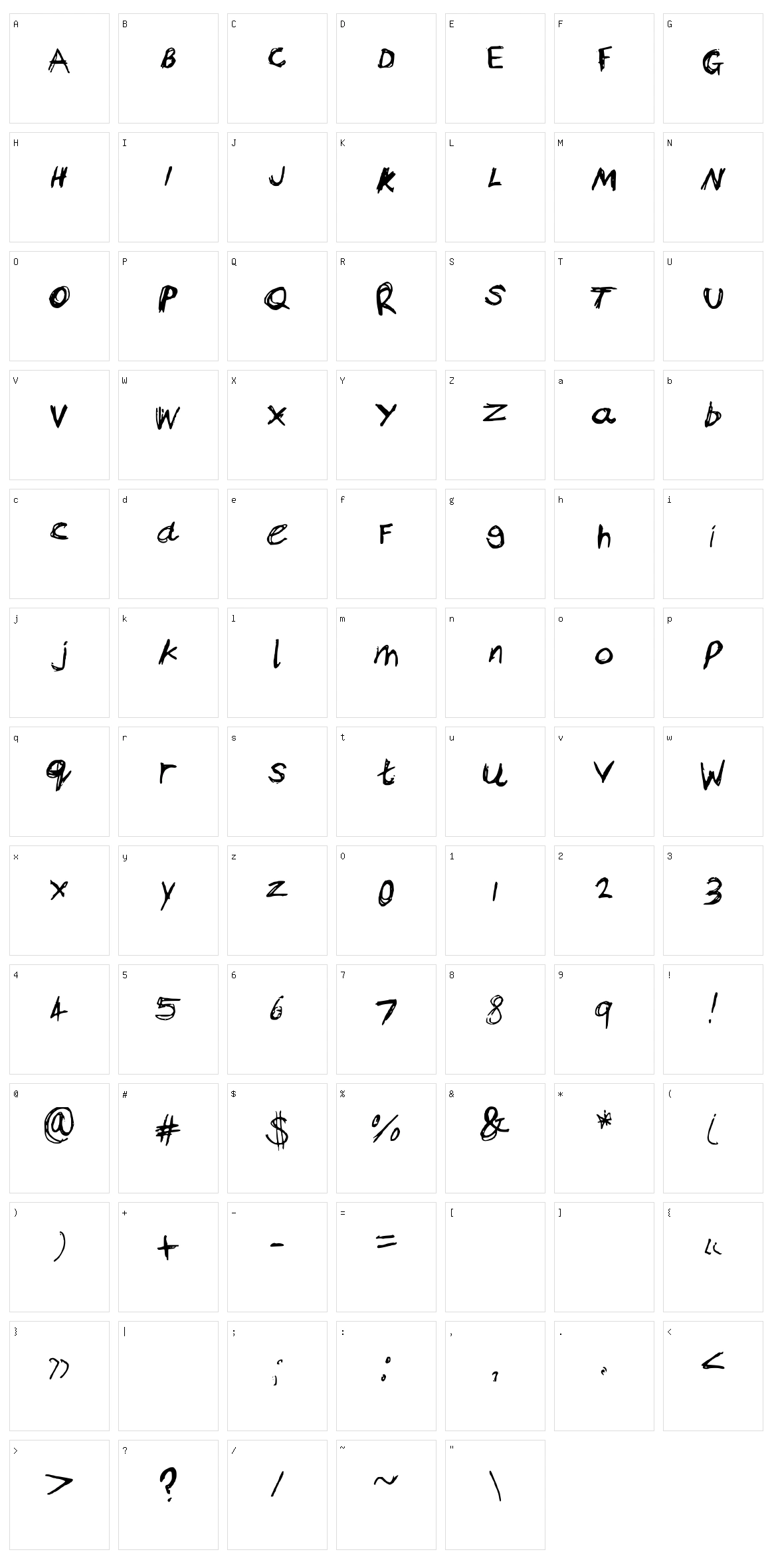
The free font Bams Anger is carefully designed by Graphics Bam, showcasing a thoughtful balance of creativity and usability and falls under the Trash font style. When you download the ZIP file, it contains only 22.06 KB of font files, making it lightweight and quick to download. Please review the license details below to understand permitted usage and distribution rights. If license information is not available, we recommend using this font for personal projects only or contacting the author directly for commercial usage permissions.